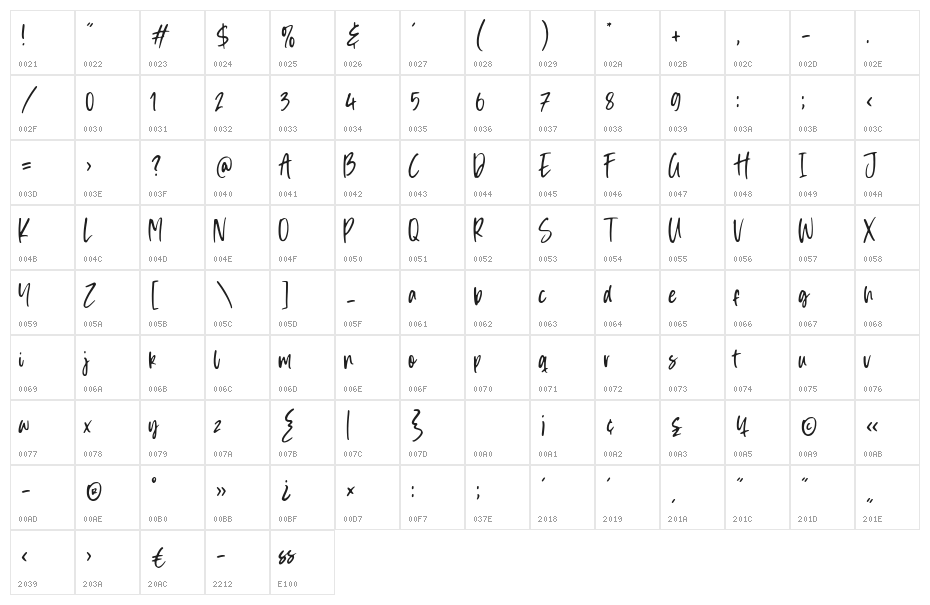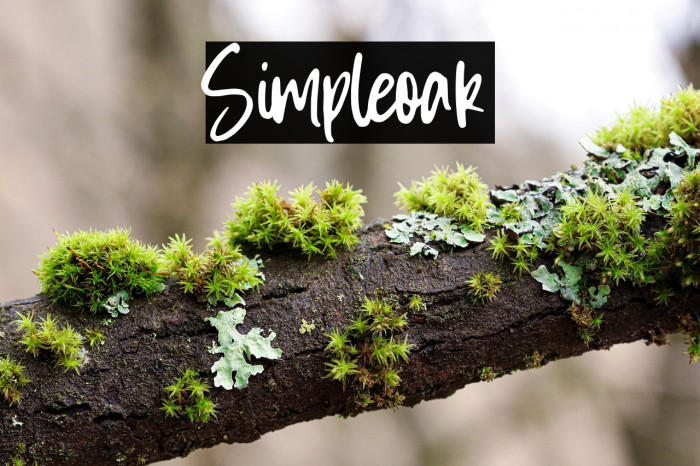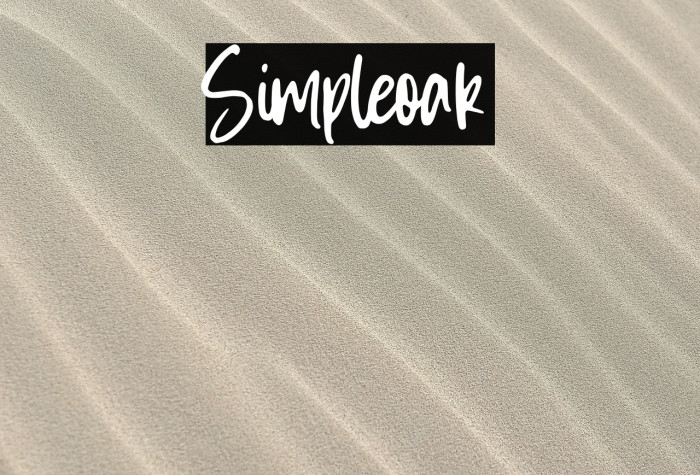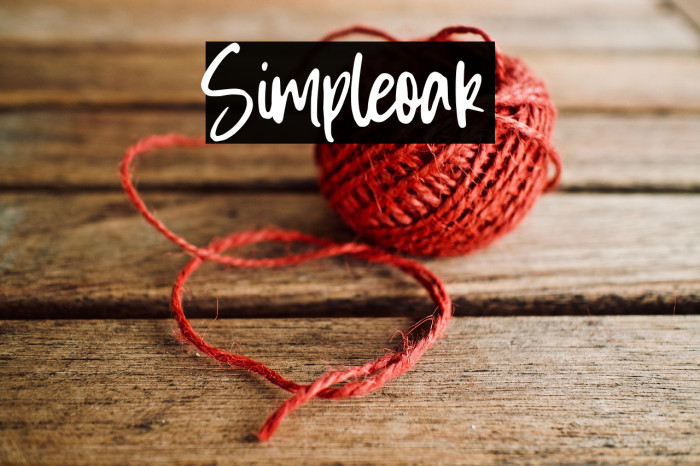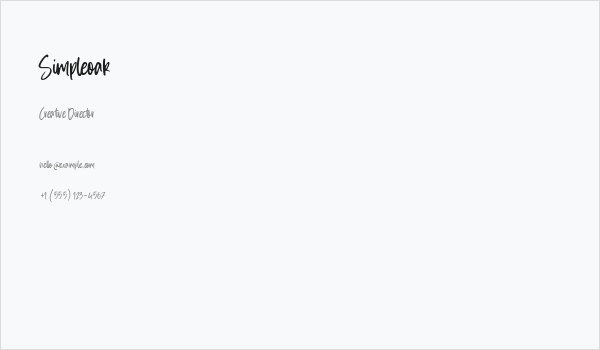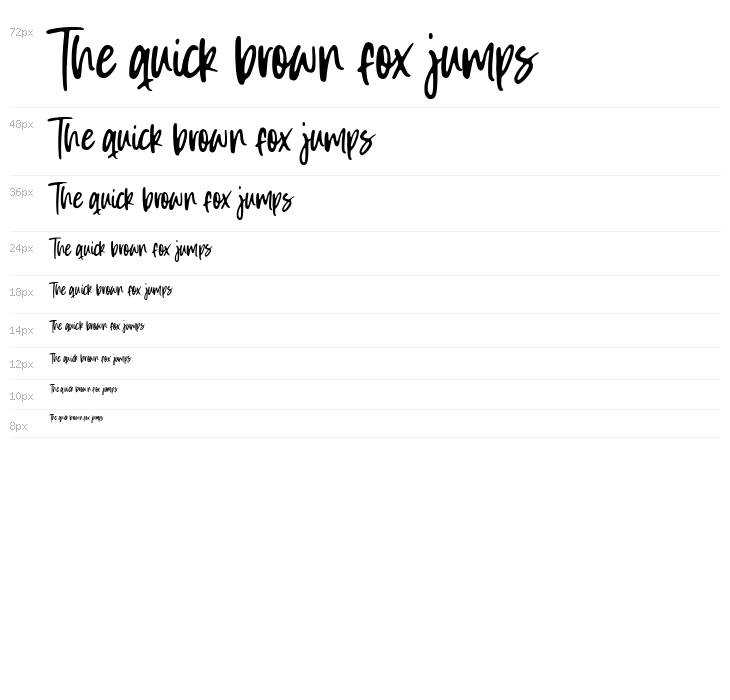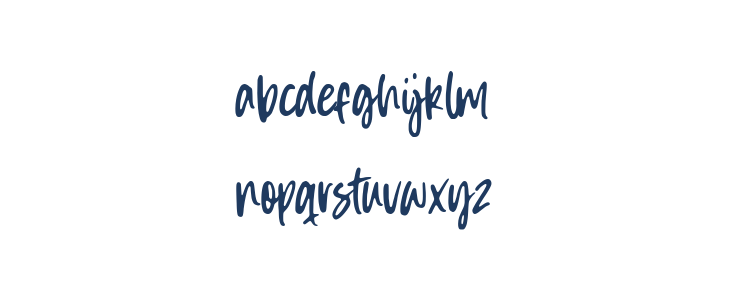
Simpleoak Font
Simpleoak Description
This font features a lively and energetic handwritten style, characterized by its fluid and dynamic strokes. The letters are slightly slanted, giving a casual and informal appearance. The uppercase letters are bold and prominent, while the lowercase letters maintain a consistent flow, enhancing readability. The numbers and special characters are crafted with the same playful touch, making them blend seamlessly with the alphabet. This font exudes a sense of creativity and spontaneity, perfect for projects that require a personal and approachable feel.
| Overall Style | Casual and playful |
| Use Case | Logos, Headlines, Social media posts |
| Proposed Projects | Ideal for greeting cards, invitations, personal branding, and social media graphics. |